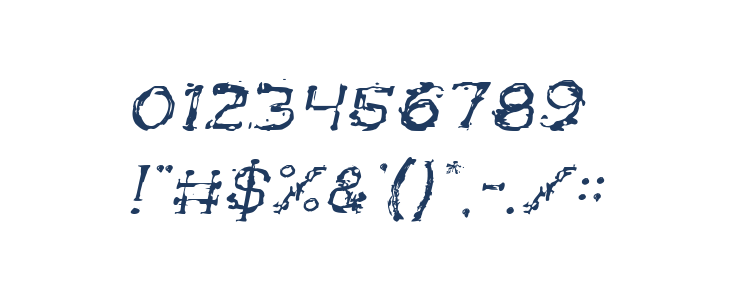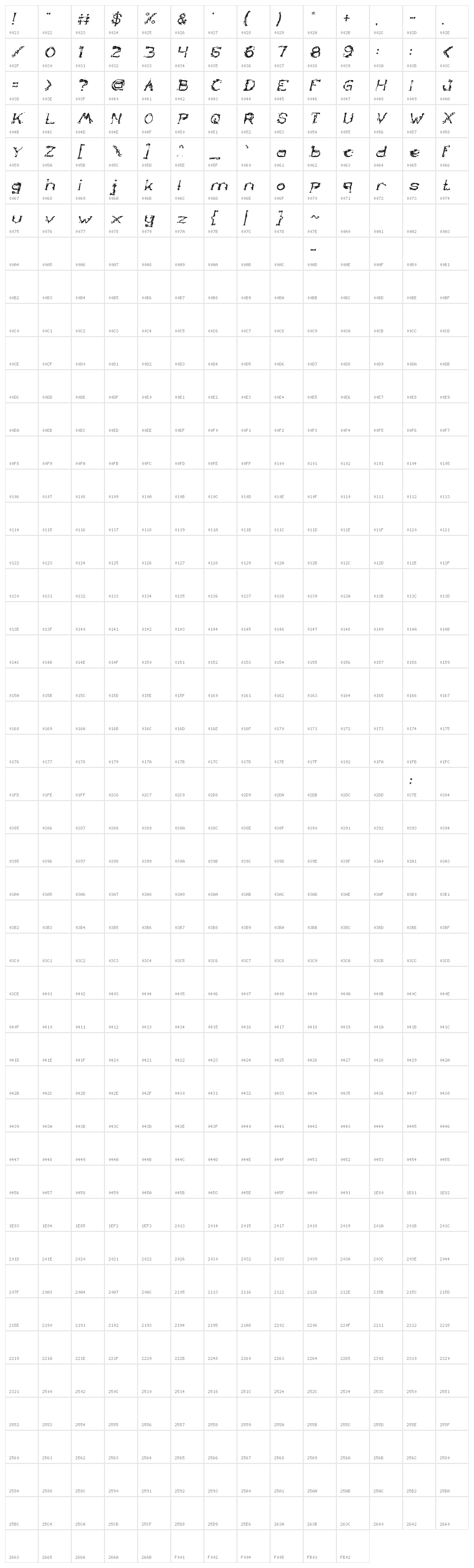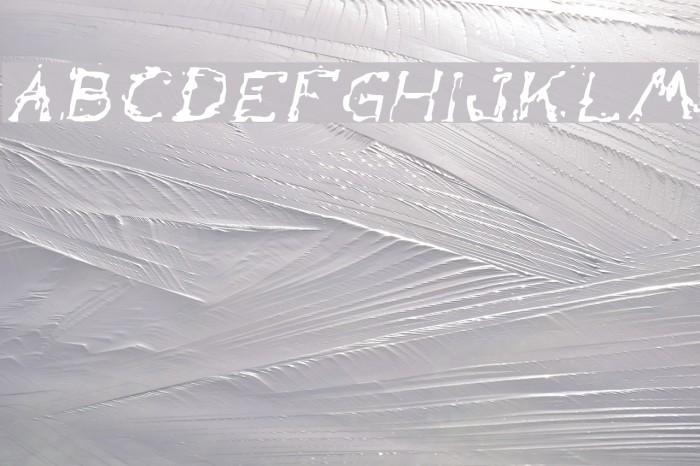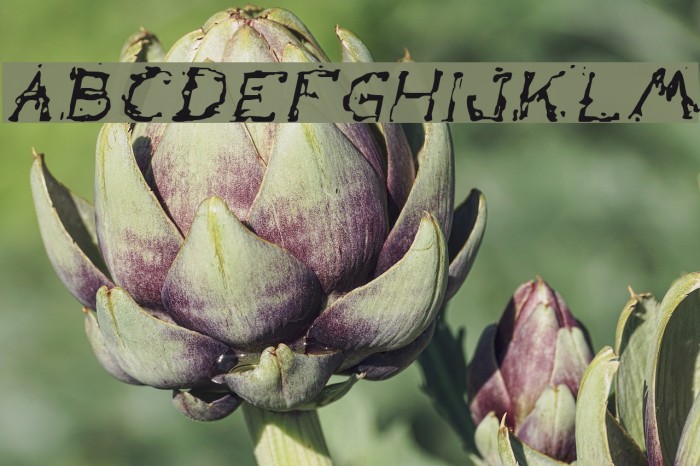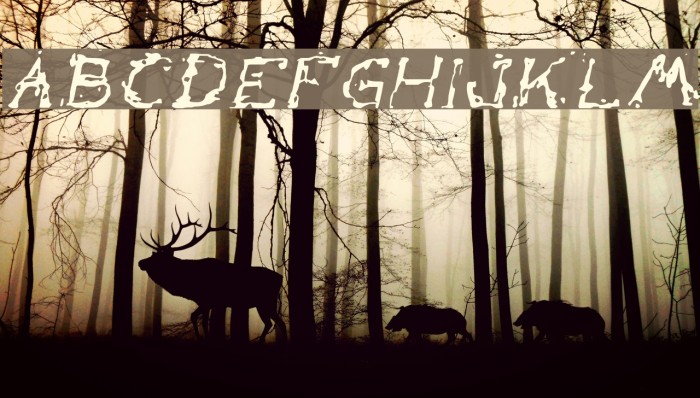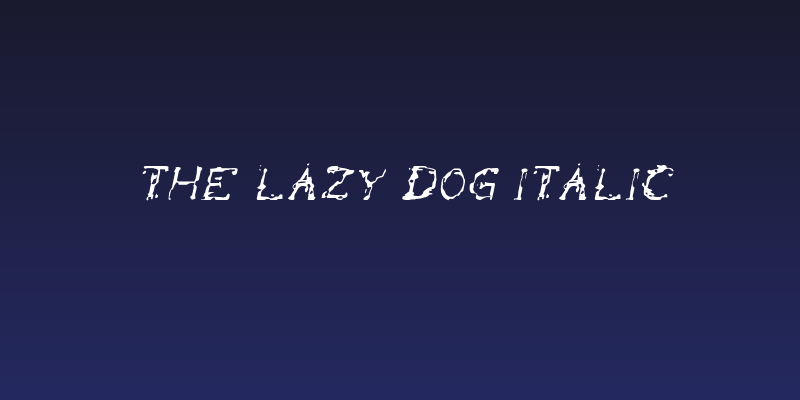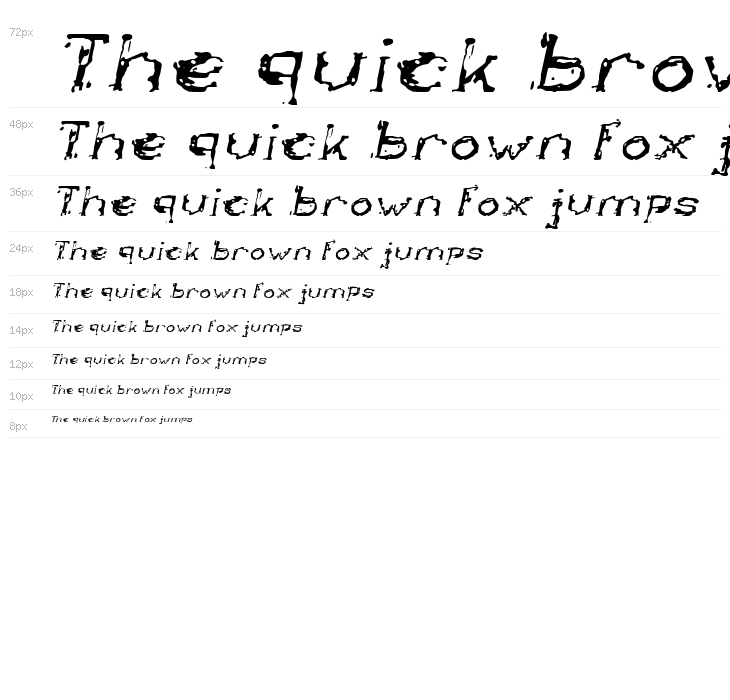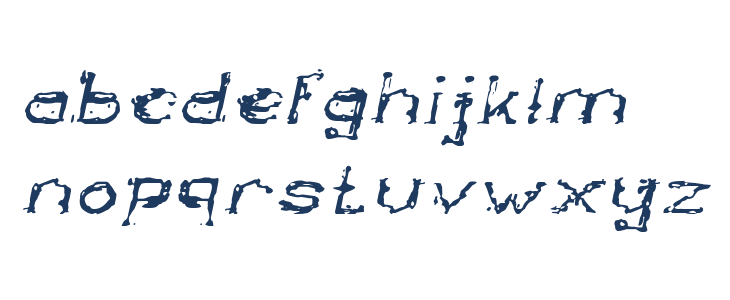
The Lazy Dog Italic Font
The Lazy Dog Italic Description
This font features a distressed, grunge style with an italic slant, giving it a unique and edgy appearance. The characters are irregular and appear as if they have been weathered or eroded, adding a sense of texture and depth. The uppercase and lowercase letters maintain a consistent style, with jagged edges and uneven lines that contribute to its chaotic yet artistic look. Numbers and special characters follow the same design, ensuring a cohesive appearance across all elements. This font is ideal for projects that require a bold, unconventional aesthetic.
Overall StyleGrunge, Artistic
Proposed ProjectsAlbum covers, poster designs, streetwear branding, or any creative project needing an edgy, artistic touch.